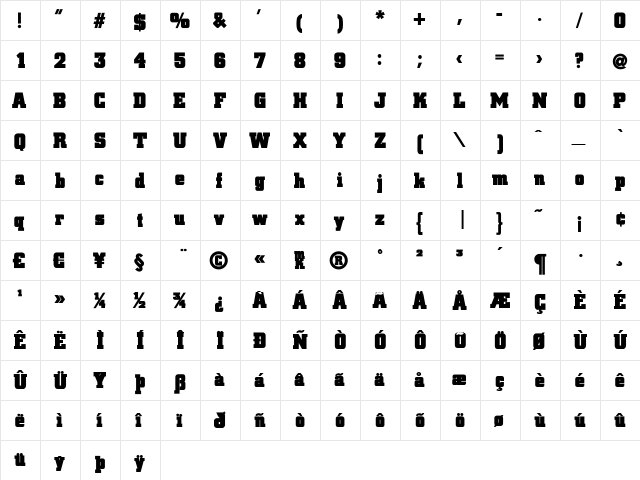
BlaxSlabXXL Regular
Design Context for BlaxSlabXXL Typeface
BlaxSlabXXL features prominent, blocky serifs that give it a confident, grounded presence — equally at home in editorial settings and bold branding work.
Suited to magazines, political campaign materials, bold packaging, and any setting where authority matters.
Pro Tip: Use BlaxSlabXXL for headlines and subheadings where its slab serifs can make an impression. It also holds up well in mid-size body copy thanks to its sturdy construction.